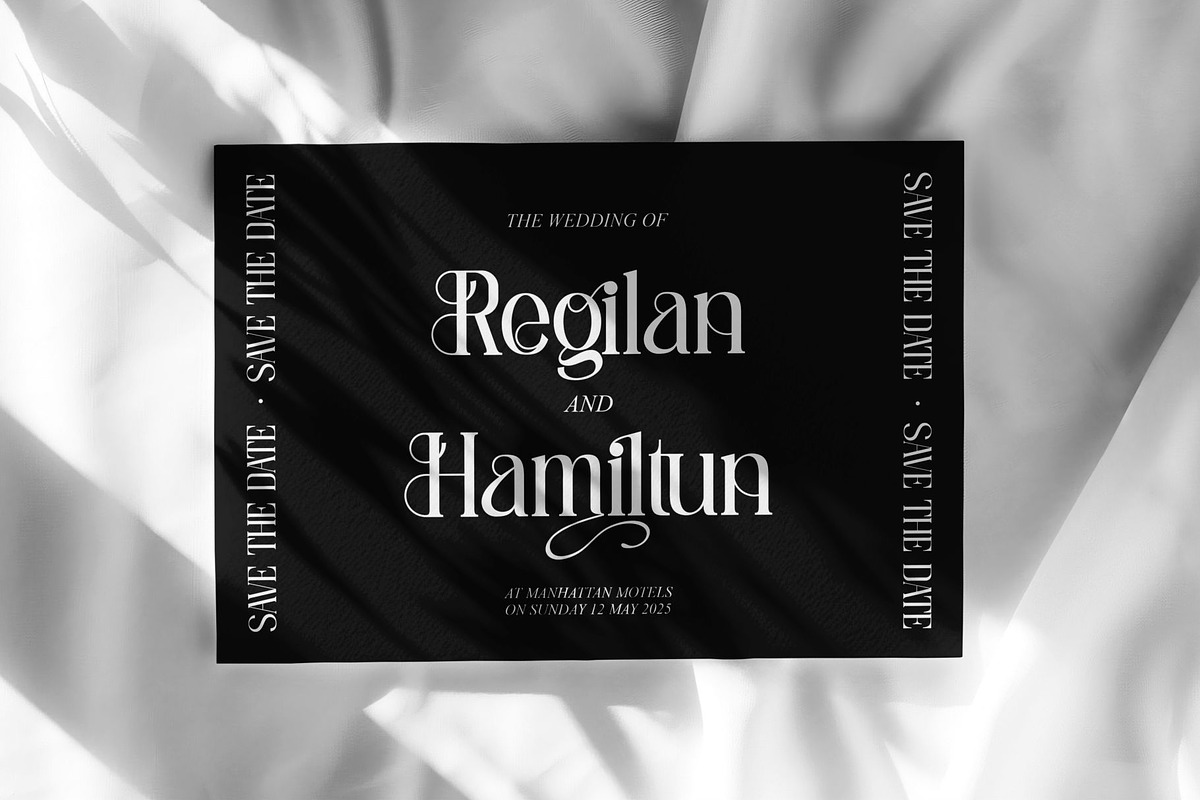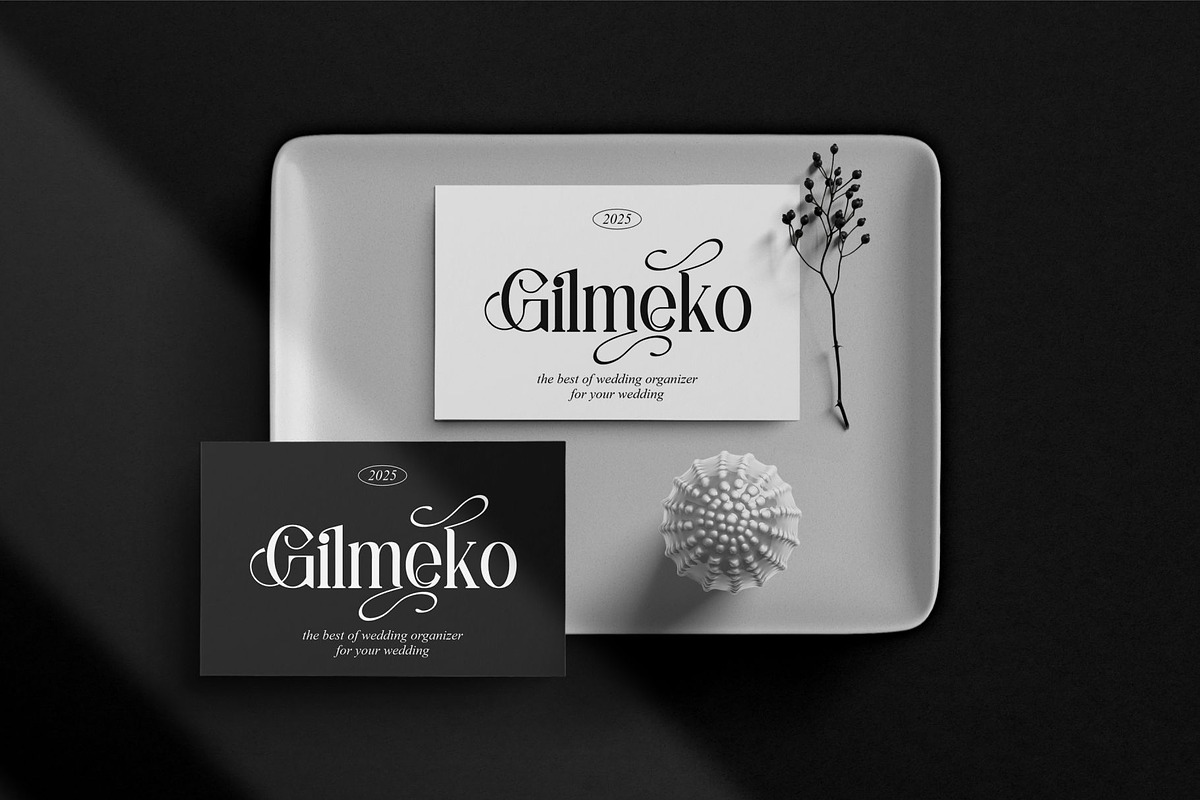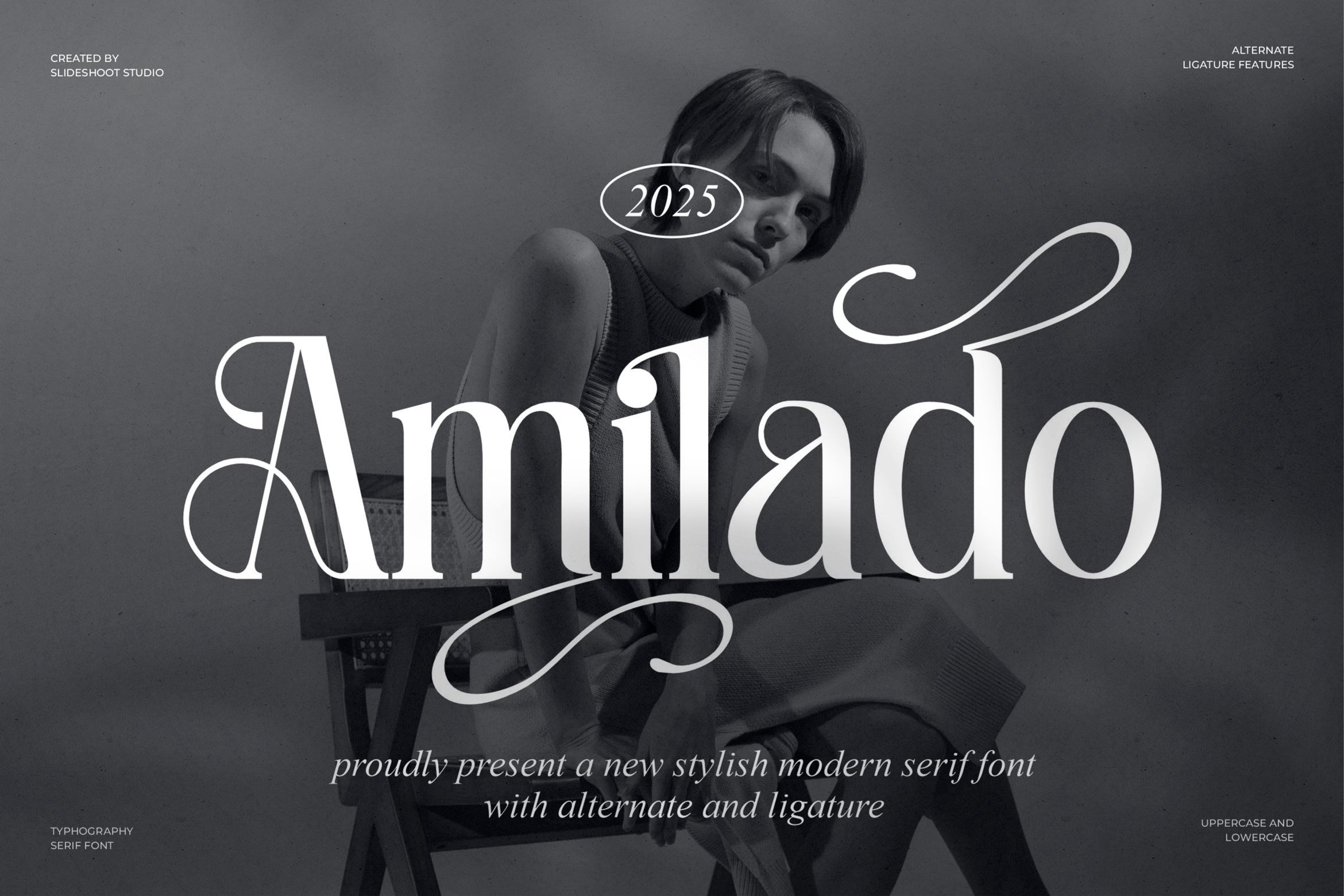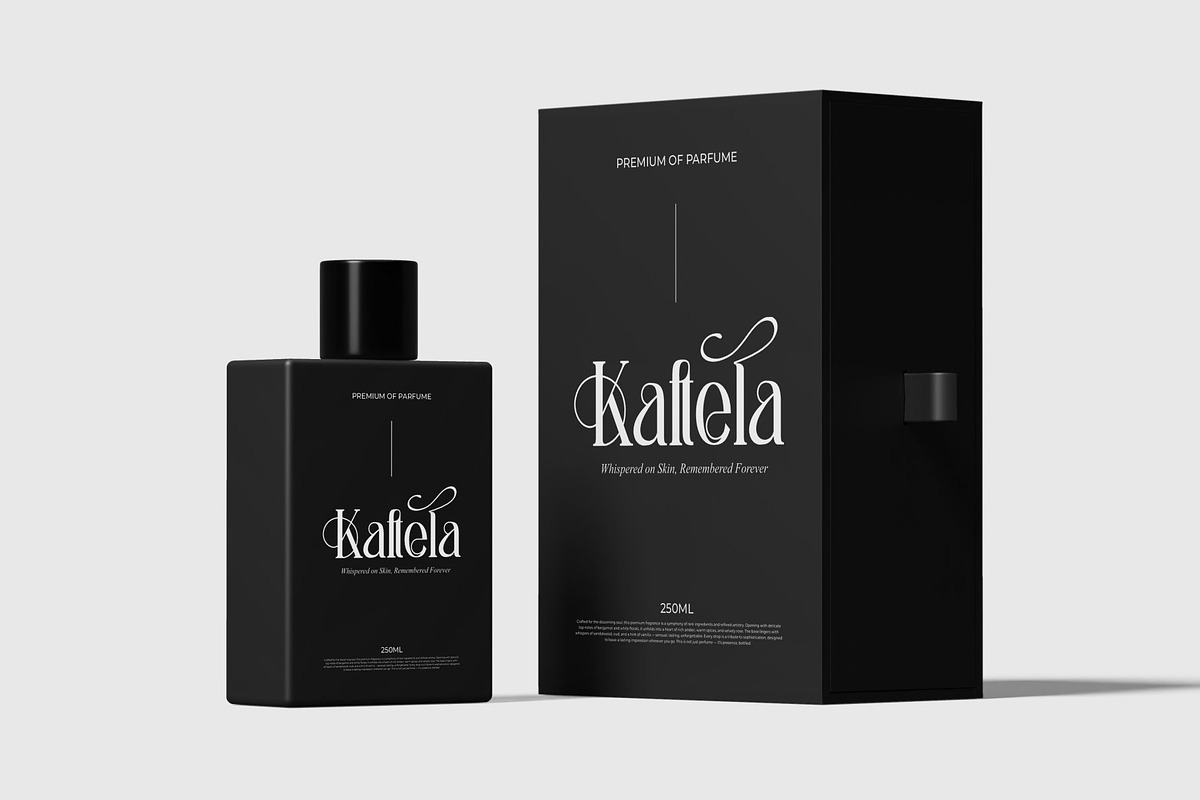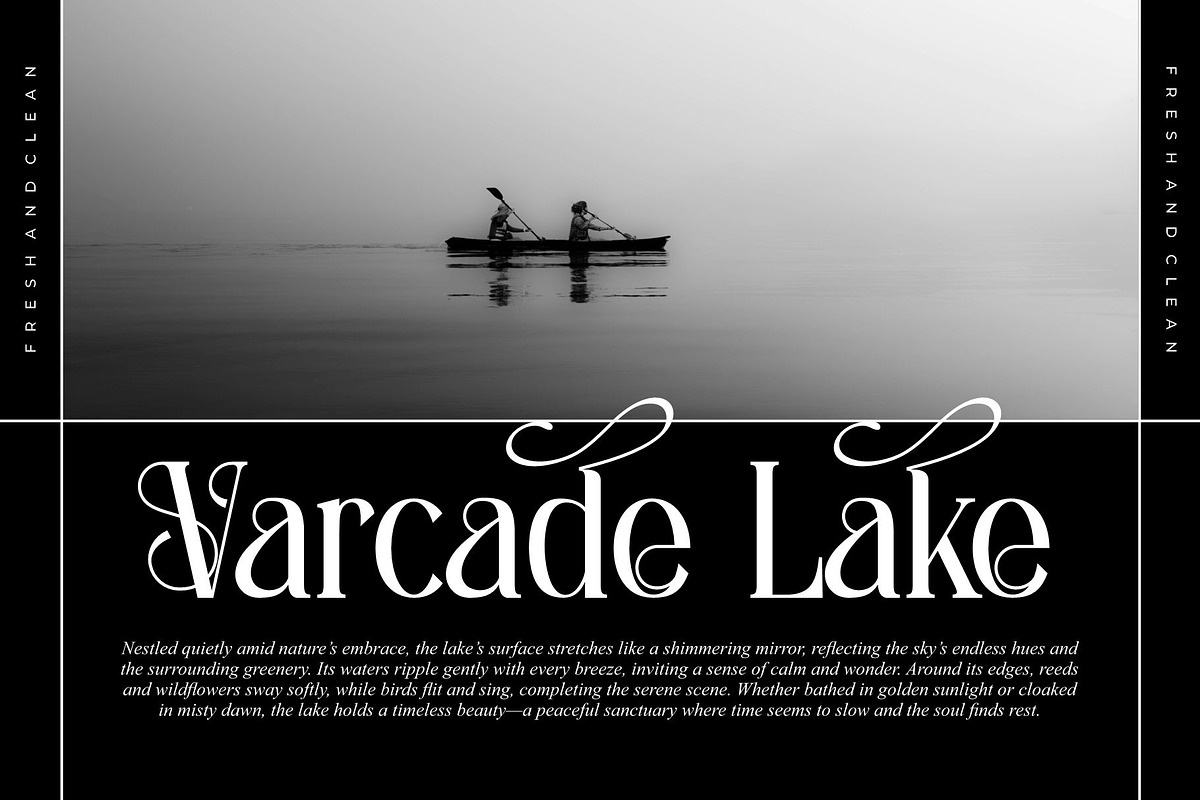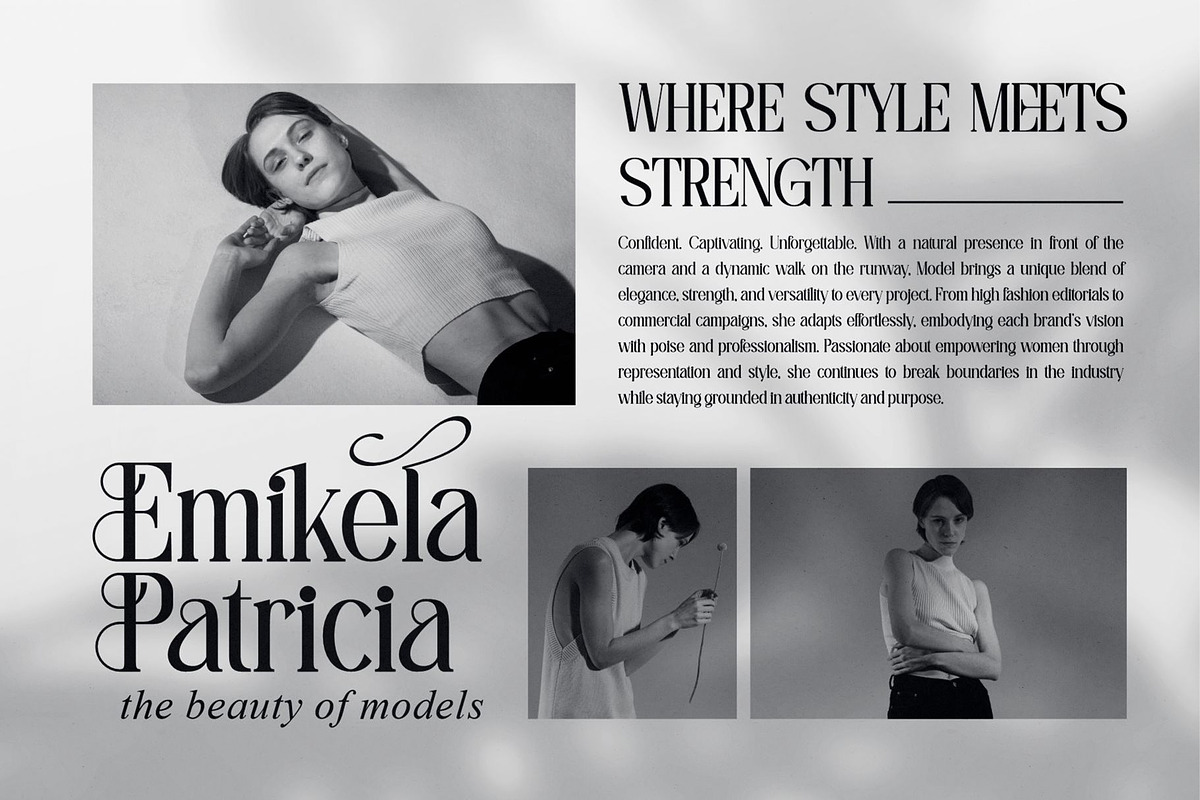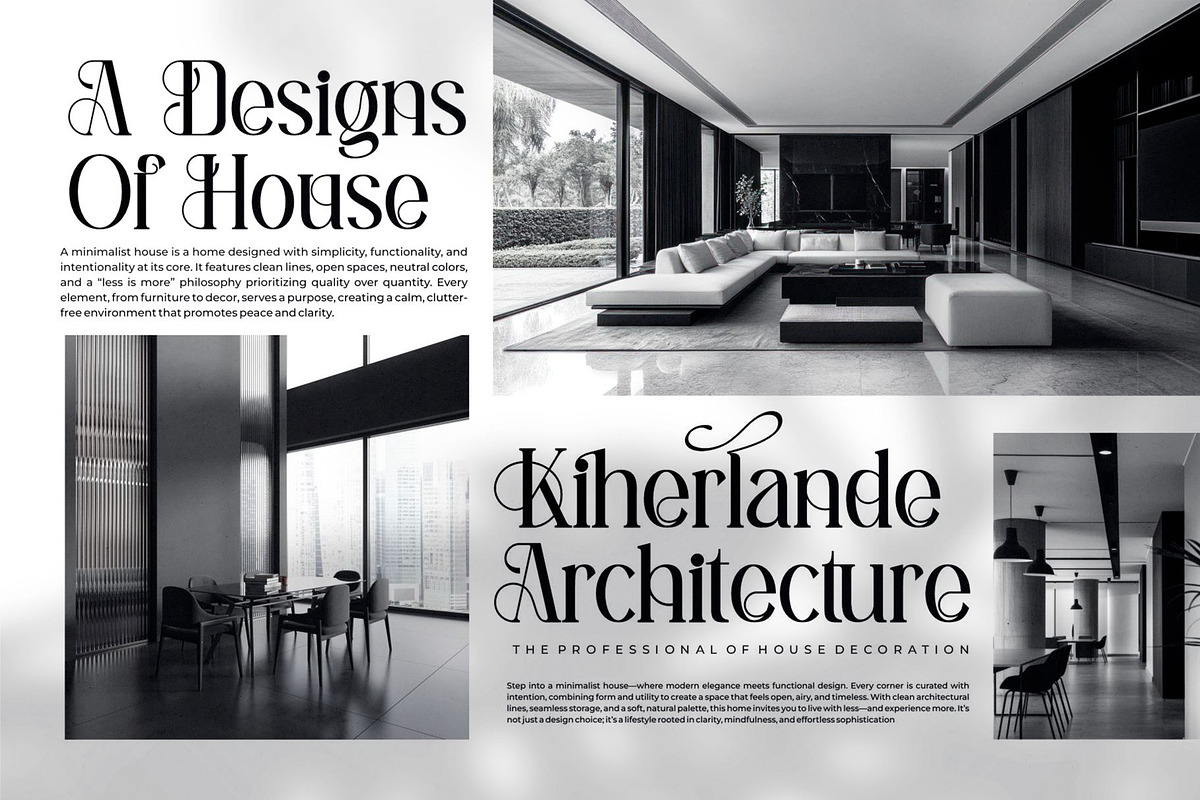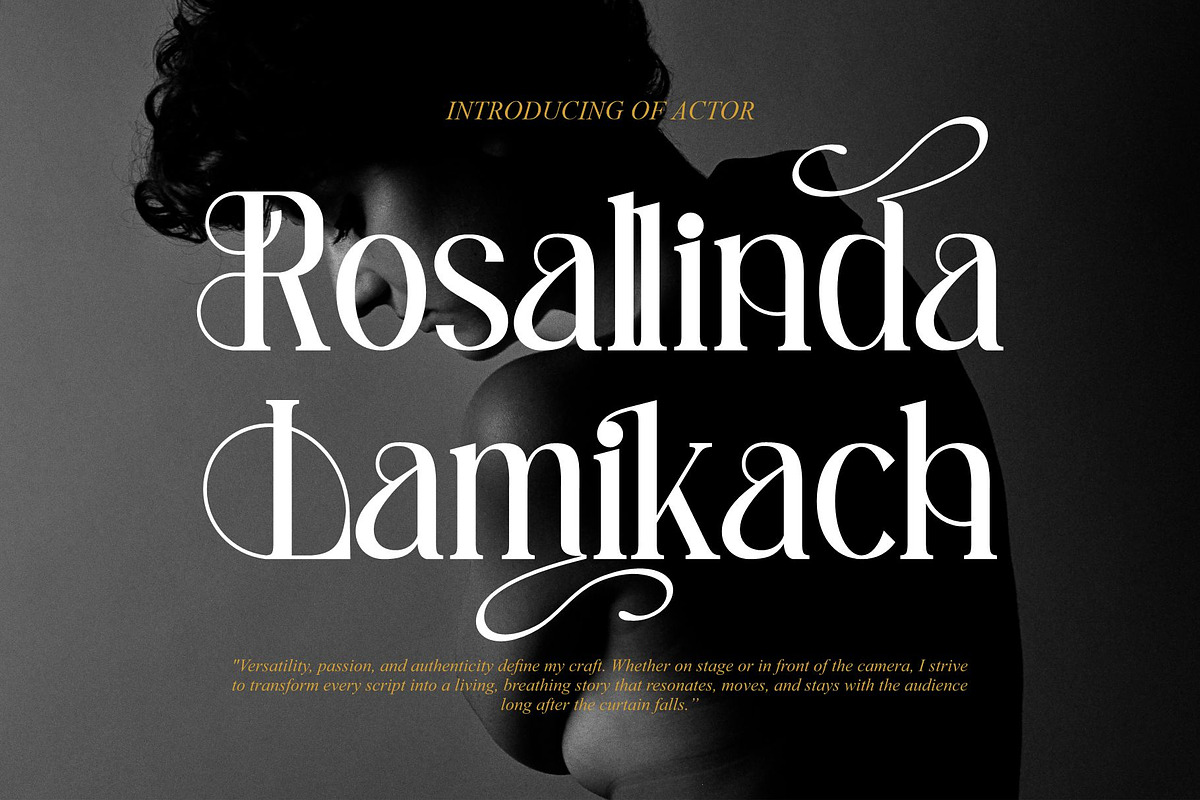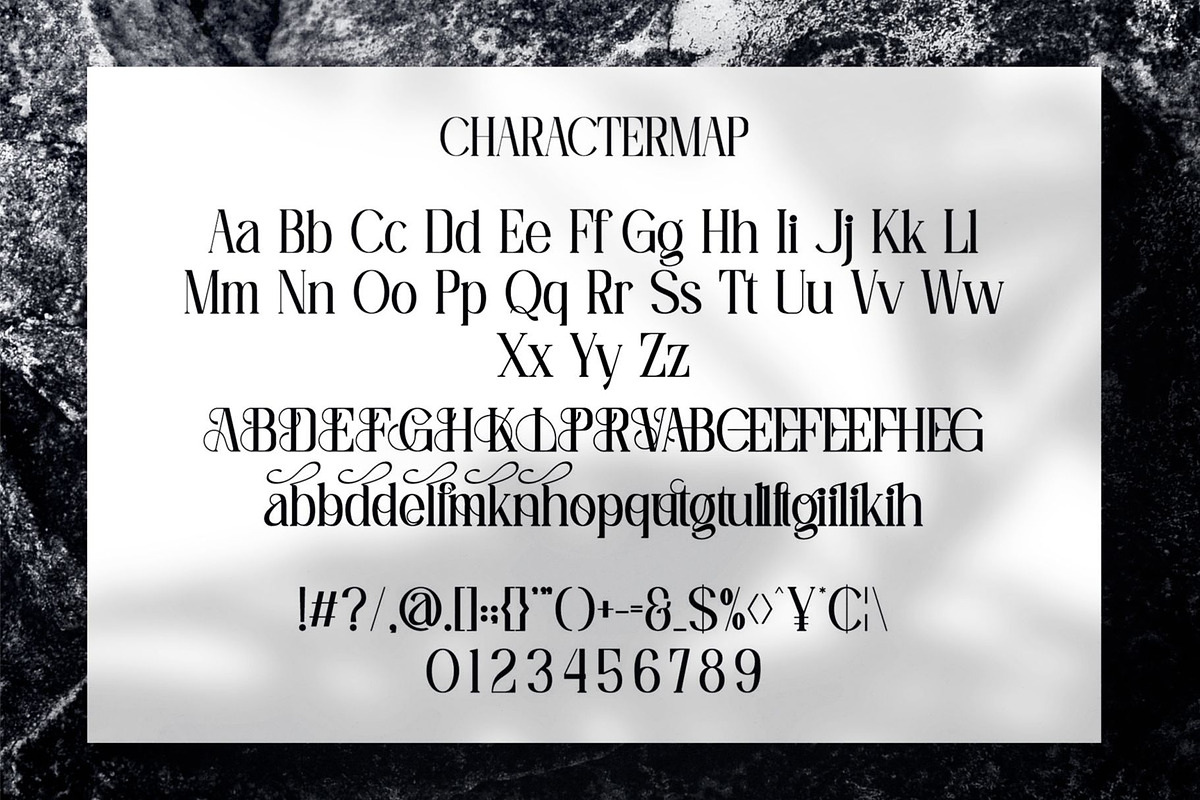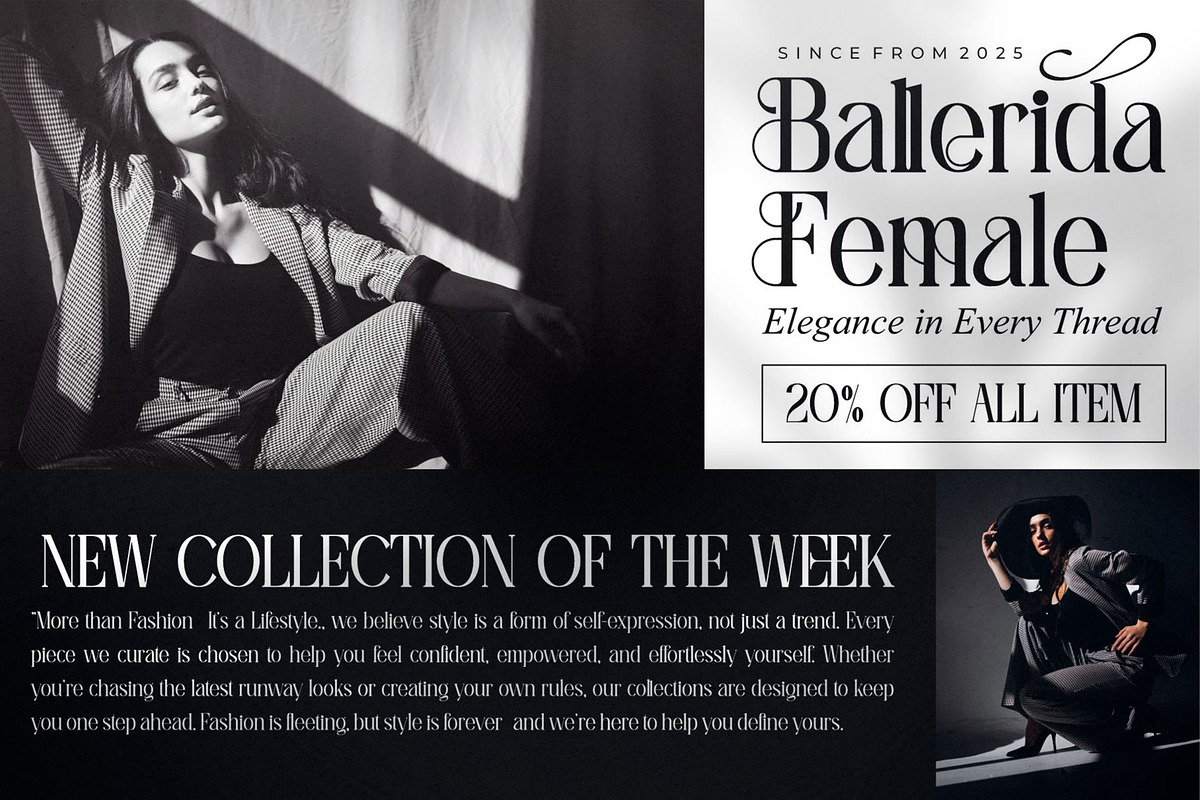
Amilado || Stylish Modern Serif Font
Introducing Amilado is modern serif font, trendy, elegant and stylish font. It has a unique character. It is perfect to be combined with invitation card designs, company logos, movie titles, movie names, business cards, book titles, brand names and various other designs.